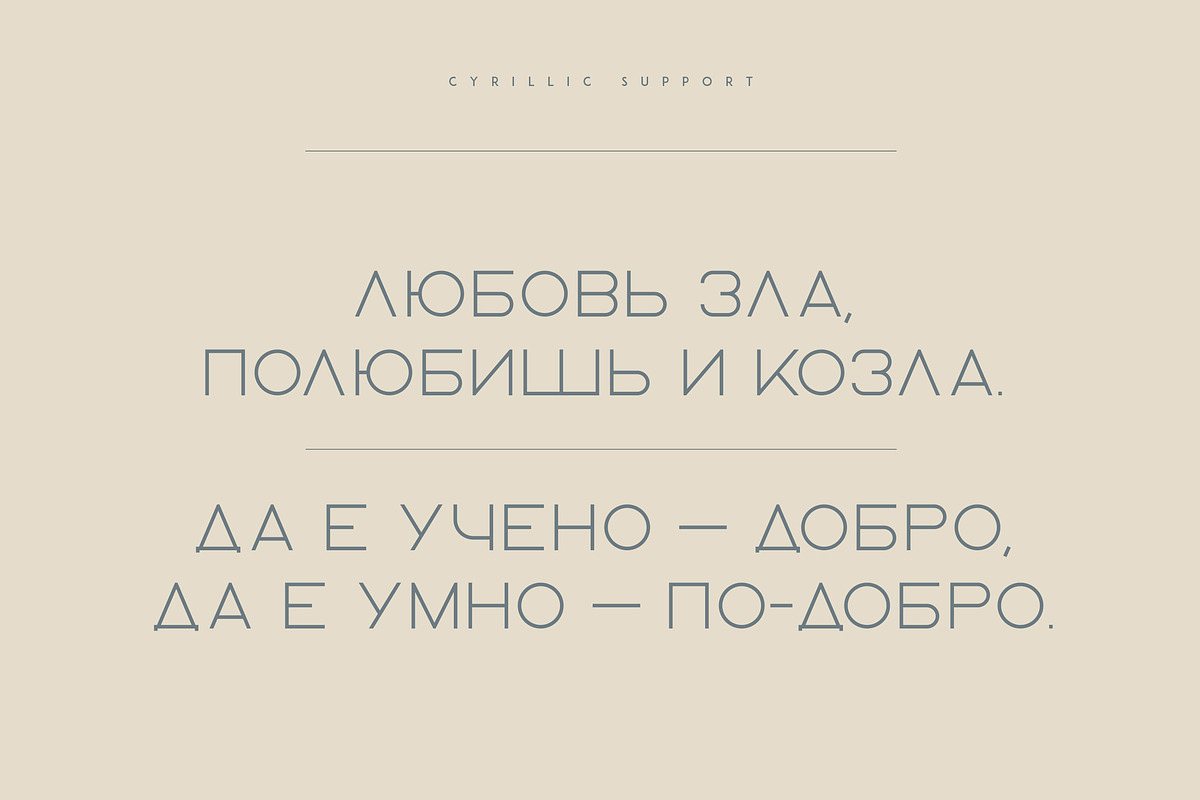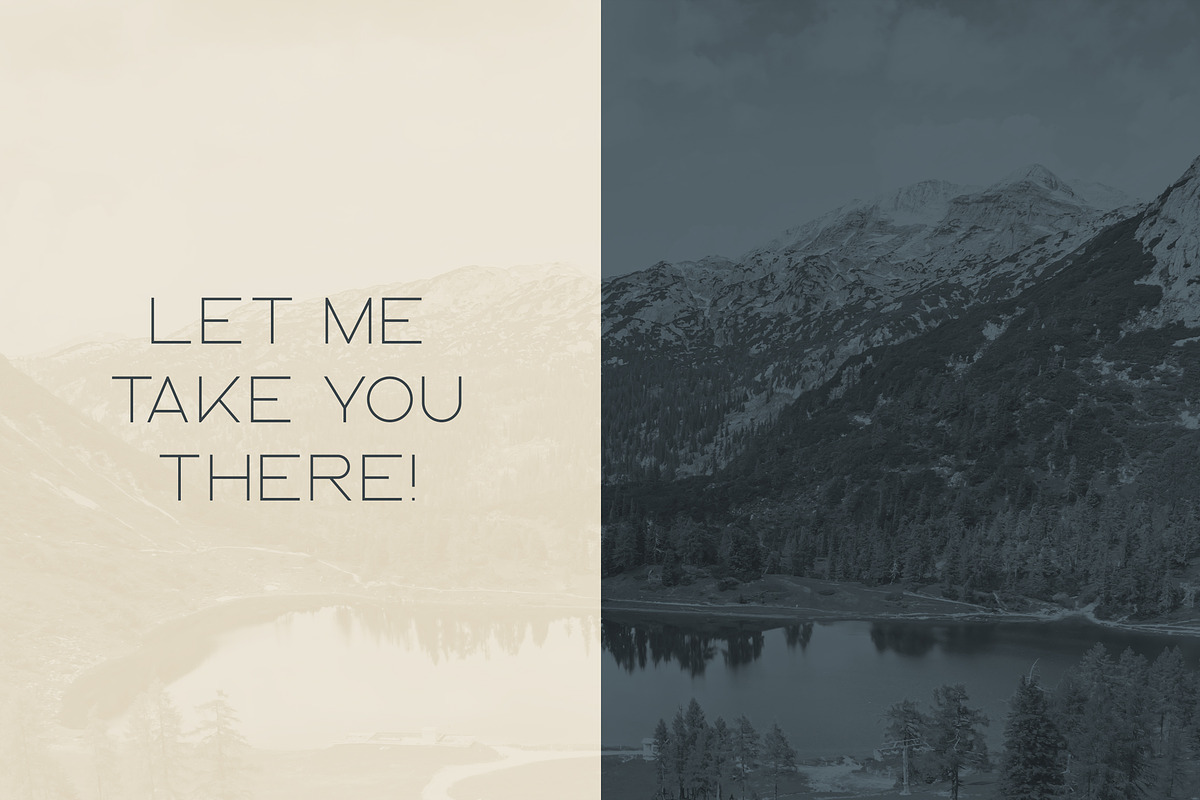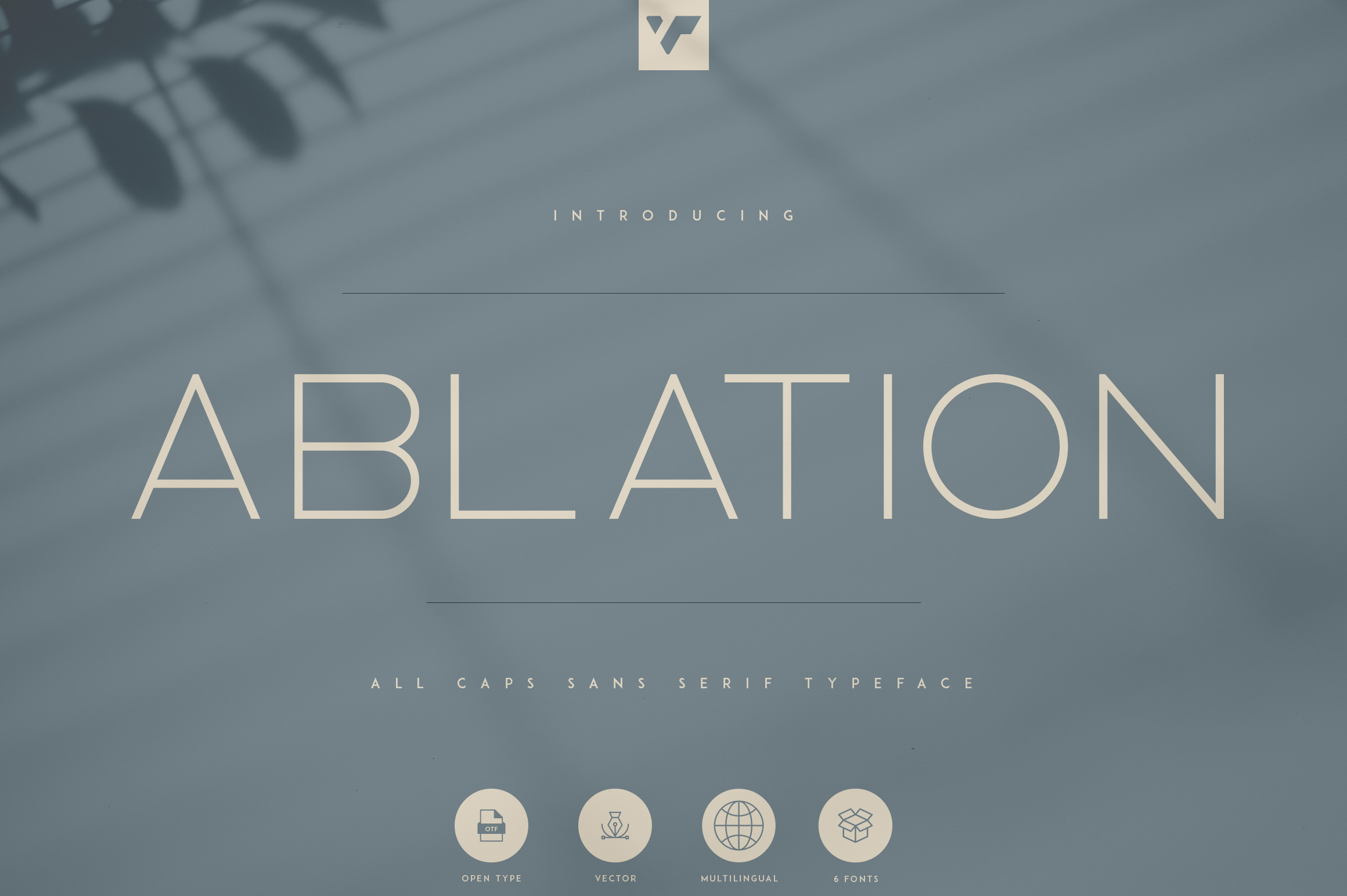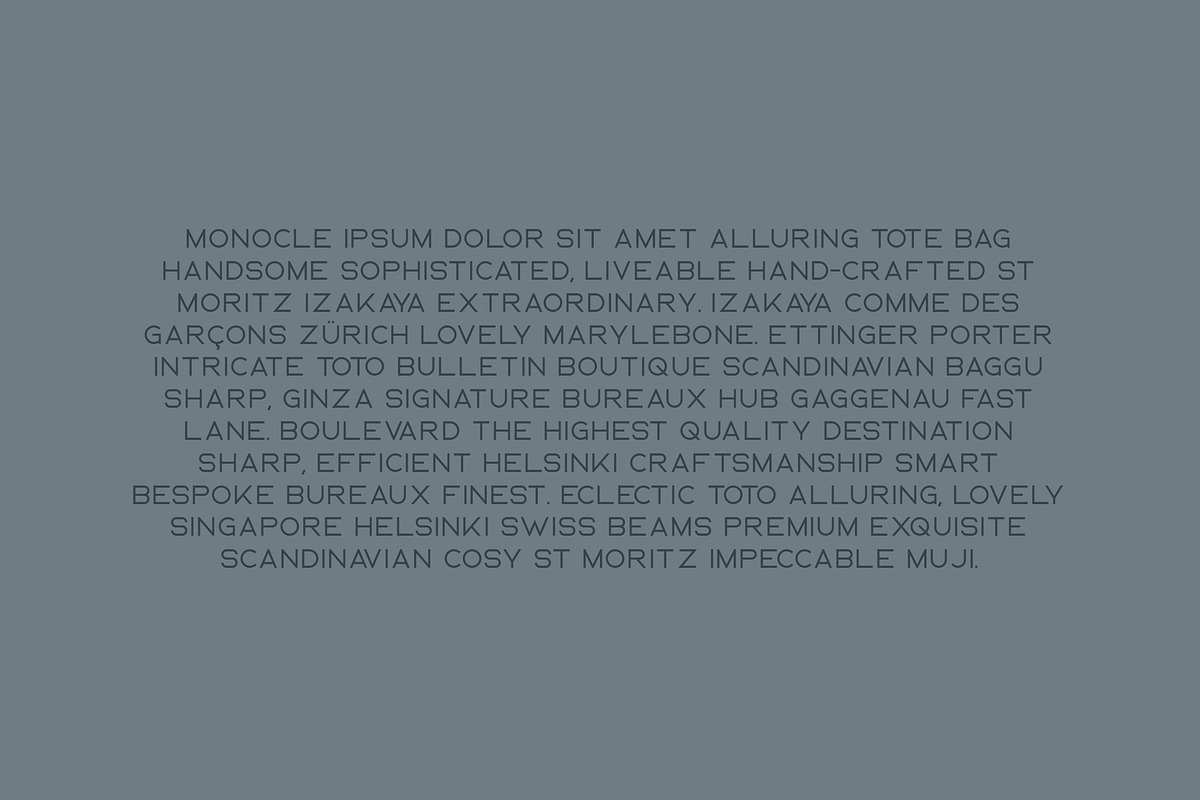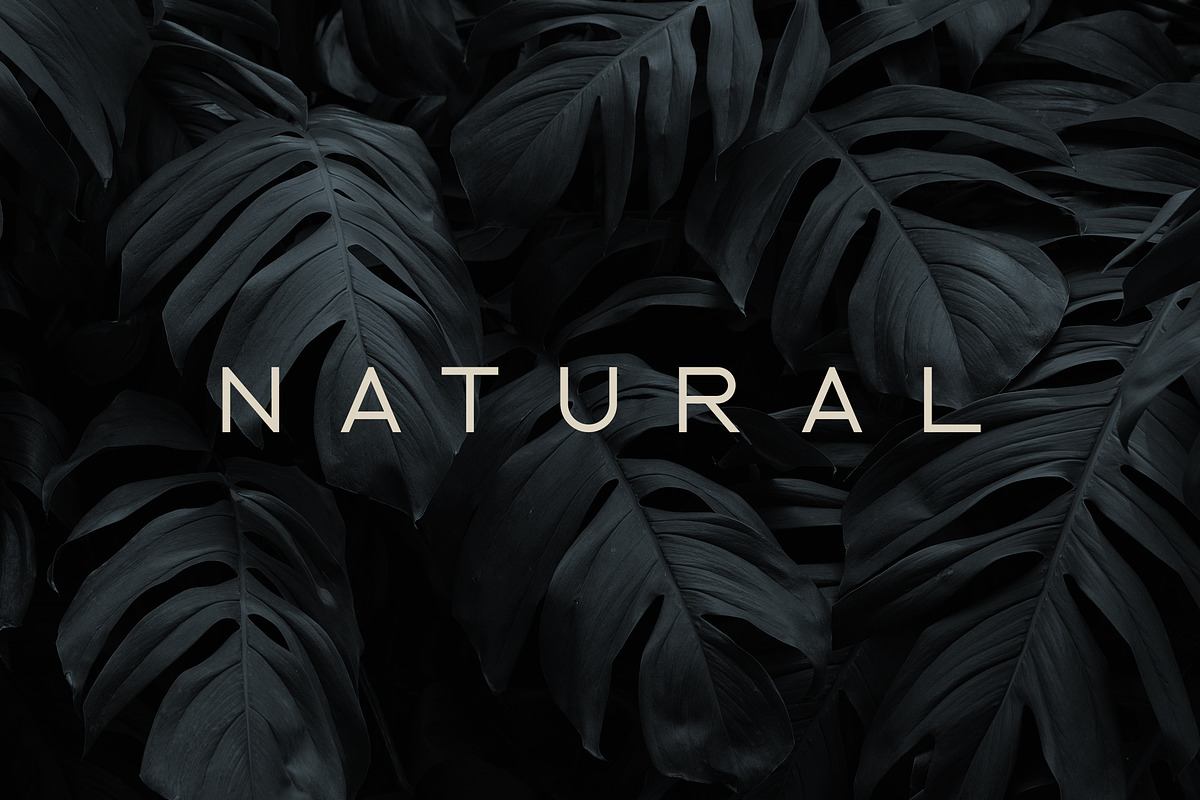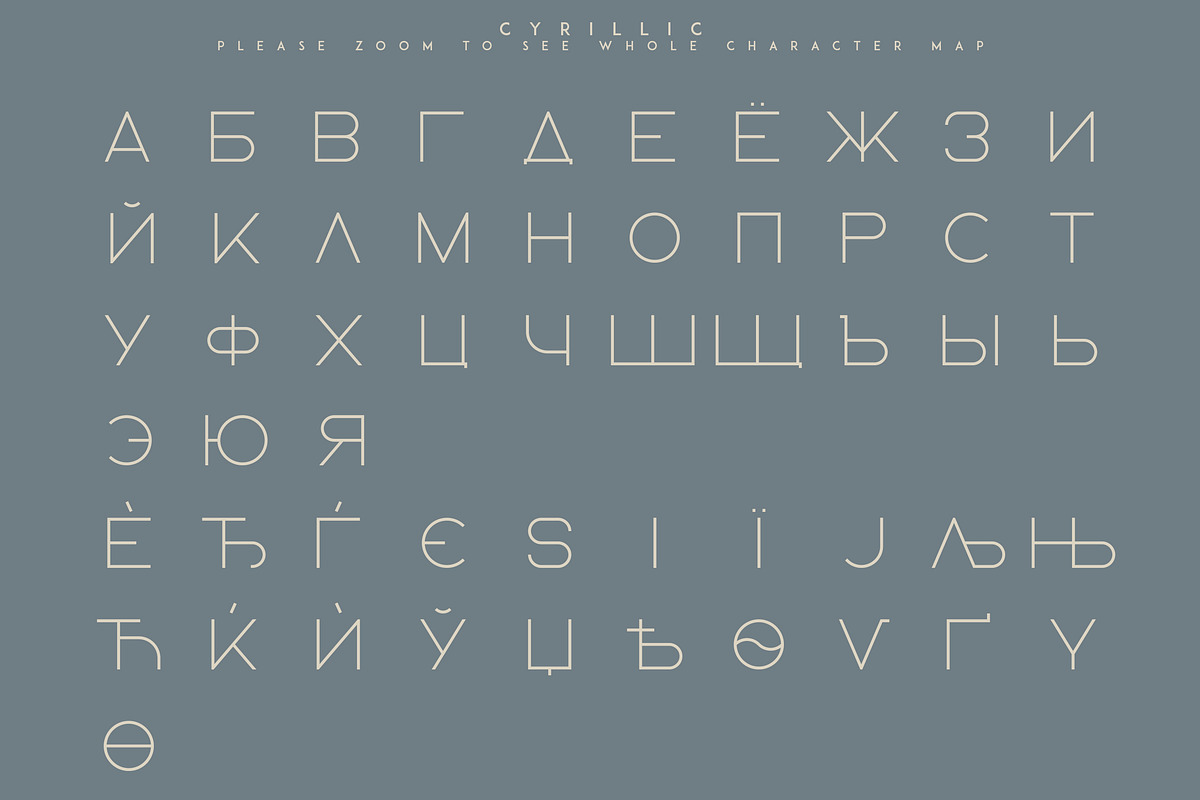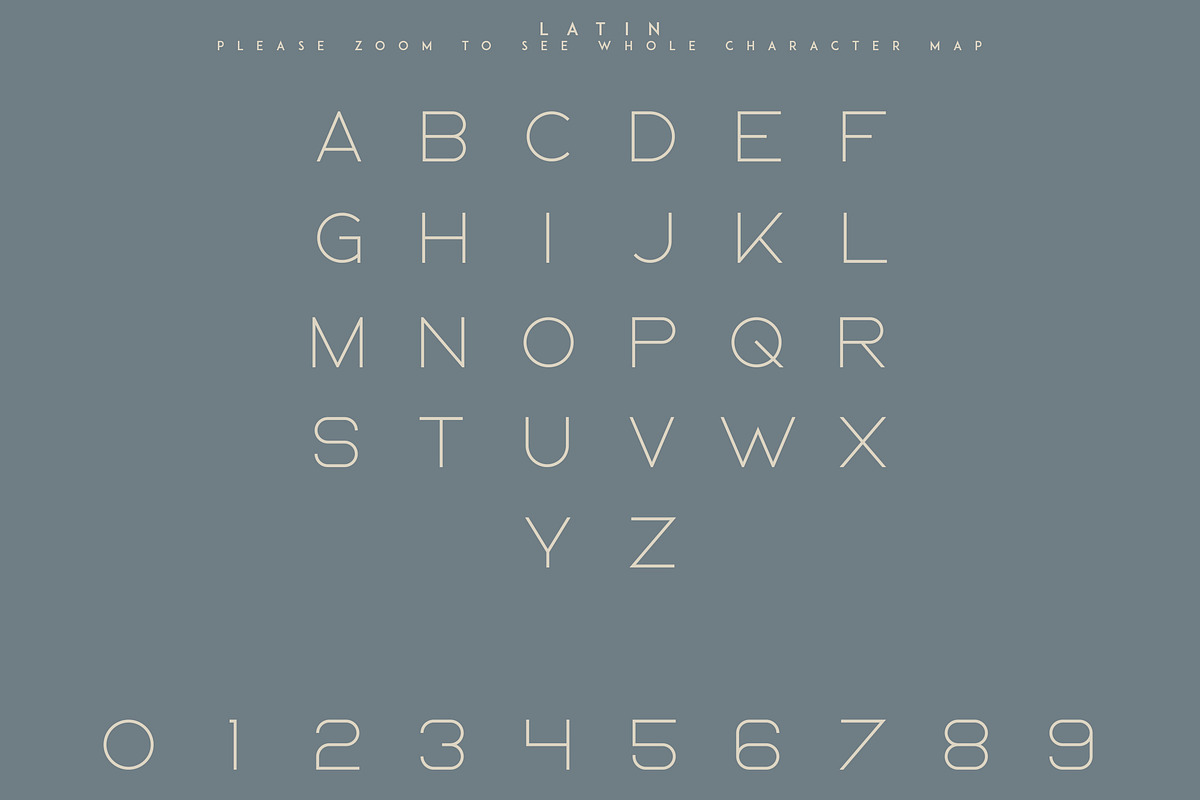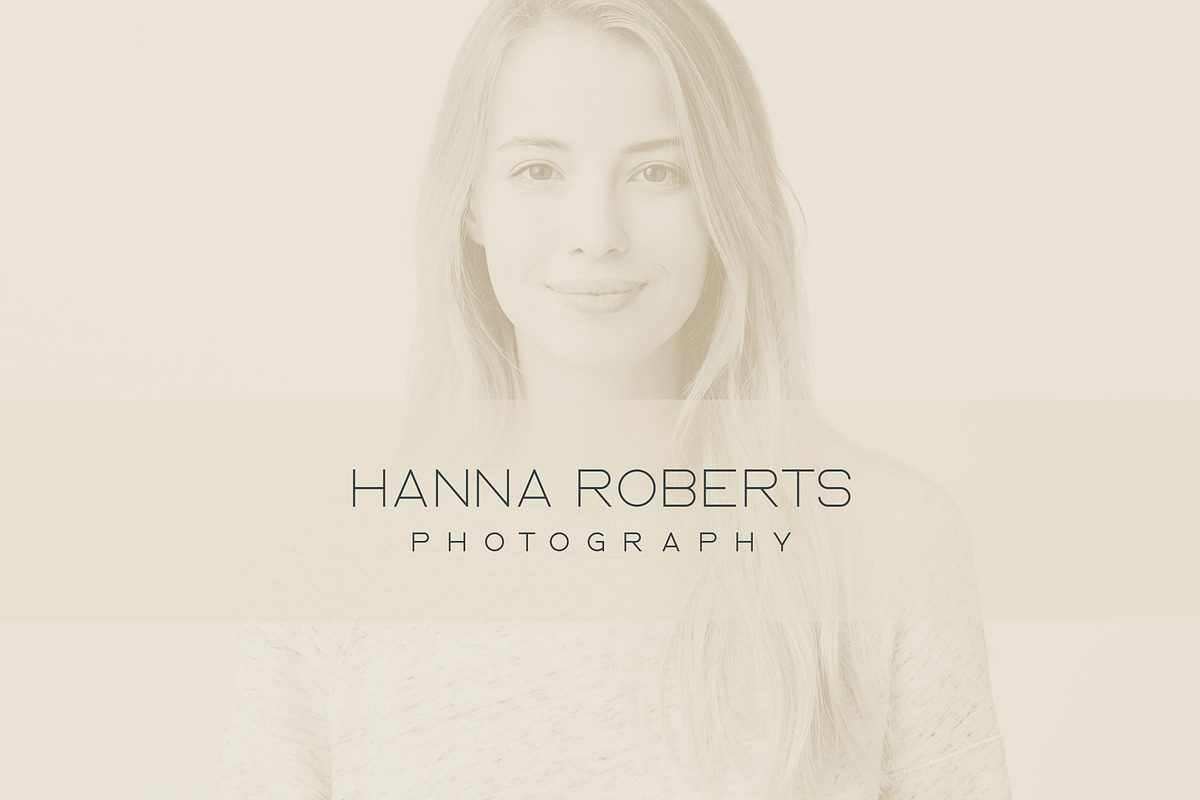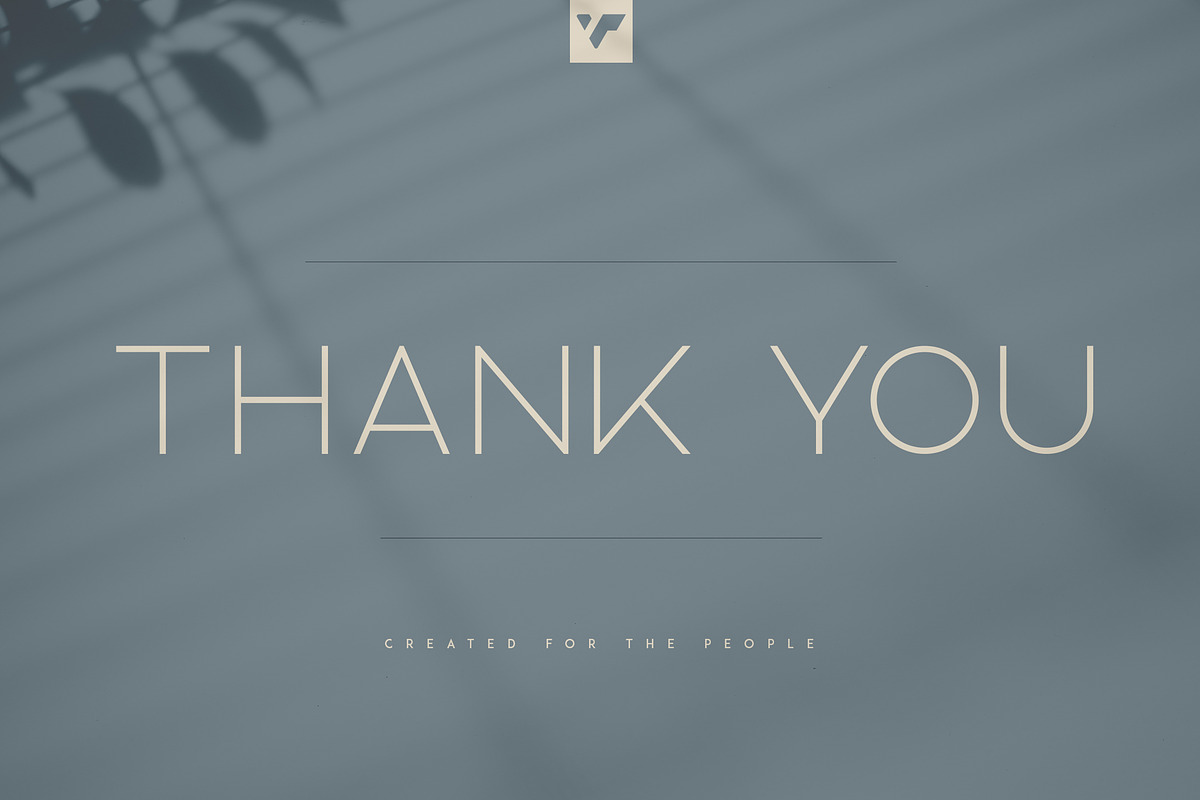
Ablation - Sans Serif Typeface
Introducing Ablation Sans Serif Typeface - 6 weighs
Ablation is casual, clean typeface that contains 6 weights to enchant your next project. They have basic latin, advanced latin, basic Cyrillic and advanced Cyrillic character sets. Very versatile fonts that works great in large and small sizes.
Ablation is perfect for branding projects, home-ware designs, product packaging, magazine headers - or simply as a stylish text overlay to any background image.
- Uppercase, numeral, punctuation & Symbol
- Hairline
- Light
- Bold
- Extra Bold
- Black
- Basic and advanced latin character sets
- Basic and advanced Cyrillic character sets
Purchased this font as it was required by a client. I would advise others to steer clear - there are plenty of other fine geometric sans fonts that won't cause you as much trouble. This font is only uppercase, which I knew before purchase. That's fine I guess but a bit of a pain - be aware. The main issue is the kerning is all over the show. If you're using it as a display font you'll need to manually fix the kerning, and if you're using it in text (e.g. for headings), you either need to accept your text is going to look trash, or fix up every little kerning issue. ABL ATION